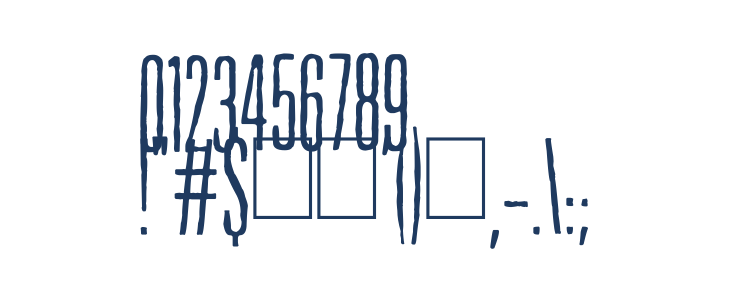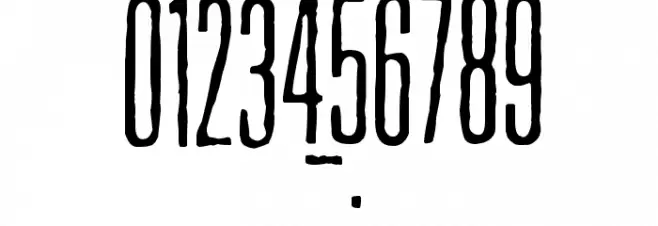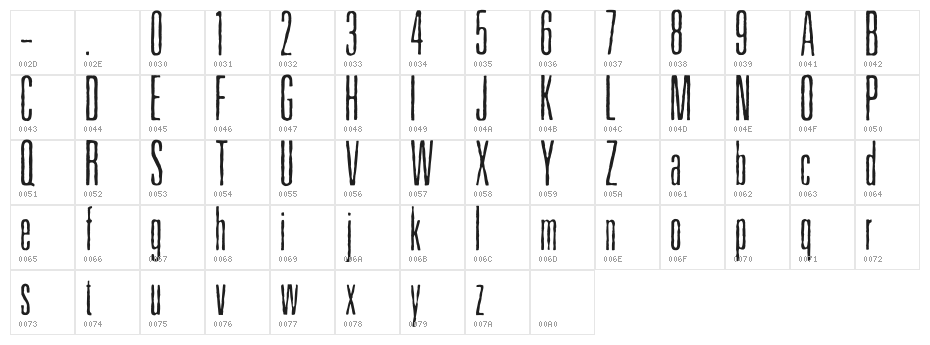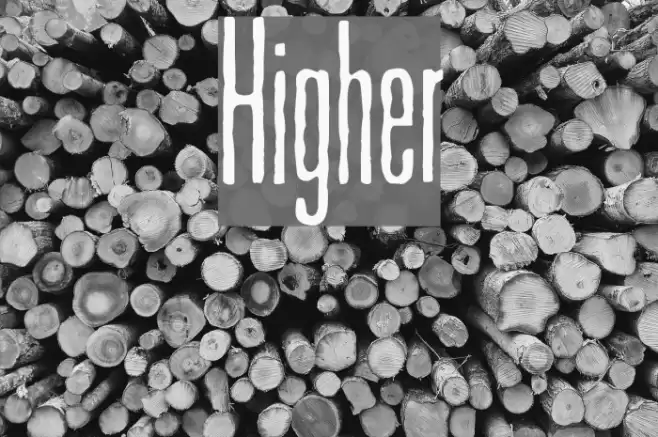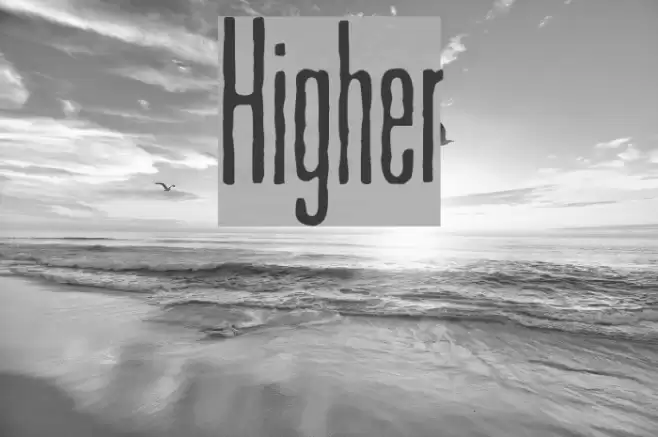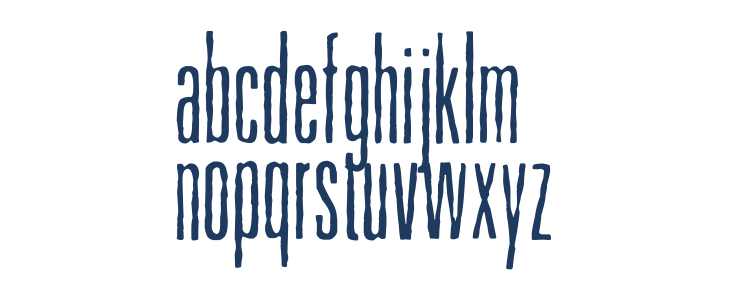
Higher Font
Higher Description
This font features a highly condensed and elongated design, characterized by its tall and narrow letterforms. The strokes are uneven, giving it a distressed and hand-drawn appearance. The uppercase and lowercase letters maintain a consistent height, contributing to its unique vertical emphasis. The numerals and special characters follow the same stylistic approach, ensuring uniformity across all glyphs. The overall aesthetic is reminiscent of vintage or retro styles, making it suitable for projects that require a distinctive and artistic touch.
Overall StyleVintage
Proposed ProjectsIdeal for posters, album covers, and branding that seeks a retro or artistic vibe.